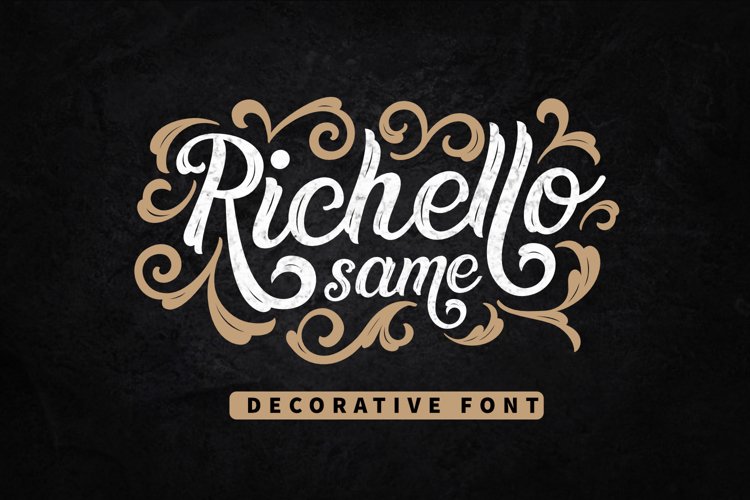
Richello Same is a decorative sans font with a mix of vintage styles, carefully crafted and clean, with neatly arranged node dots, Richello Same is a great vintage inspired font.
This font consists of 2 types with lines and without lines, so that it adds to the impression of luxury in designing your product, plus some alternative uppercase and lowercase letters to add to the luxurious impression, we also include very attractive ornaments for you to use for your design.
Richello Same is perfect for branding, quotes, greeting cards, invitation cards, t-shirts, signatures, and many others, you can try it.
– Richello Same Clean
– Richello Same Line
– Richello Same Ornament